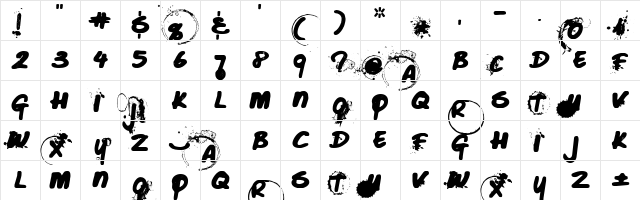
Caffeine Blackout Regular
Foundry: David Kerkhoff
Designer: David Kerkhoff
Design Context for Caffeine Blackout
Caffeine Blackout is a composed and adaptable typeface that performs quietly and consistently across a wide range of design contexts.